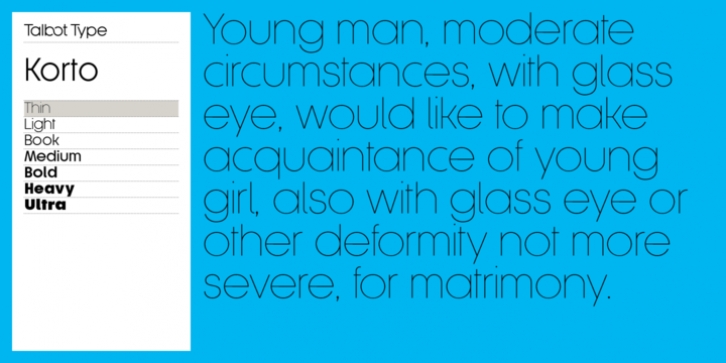
Korto is an elegant and highly legible, geometric text and display font. Inspired by classic sans-serifs Futura and Avant Garde, this stylish, minimal typeface is available in a comprehensive family of seven weights. Korto features an expanded character set to include Central European accented characters in addition to the usual Western European characters. A highly versatile, contemporary sans-serif, Korto is suitable for more-or-less any text or display purpose.